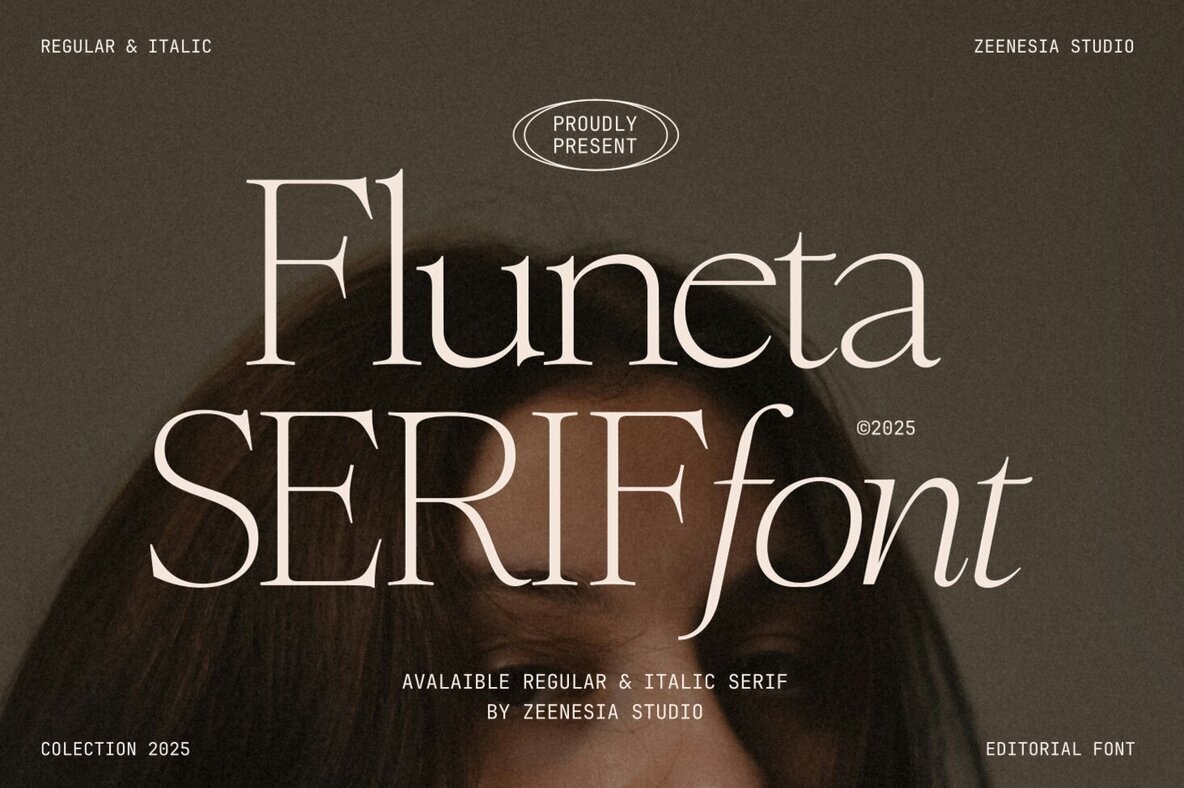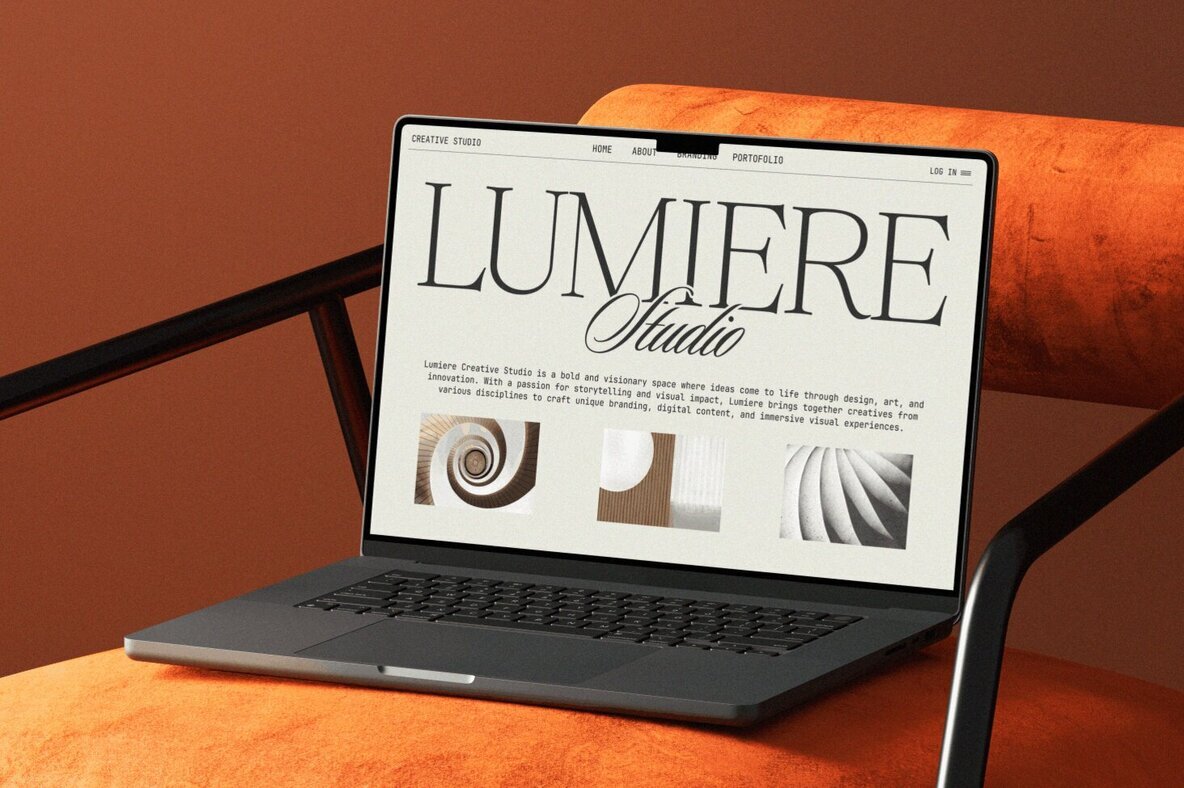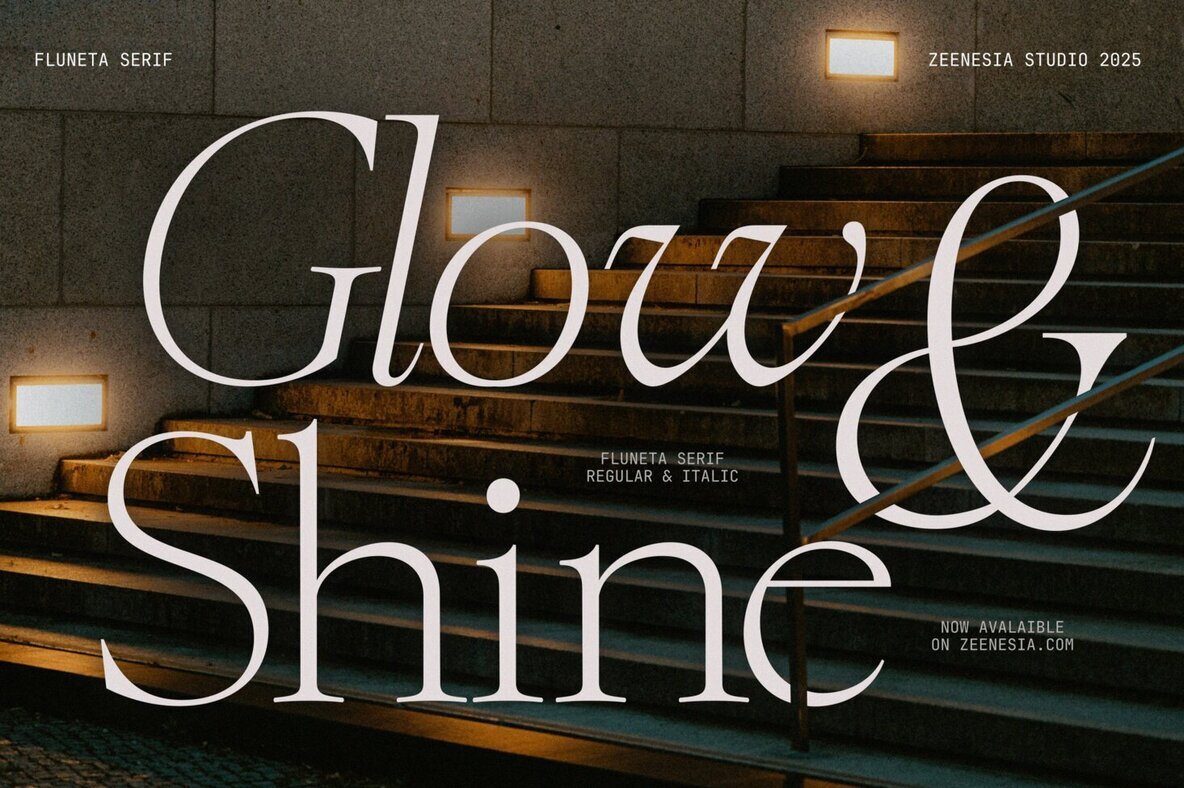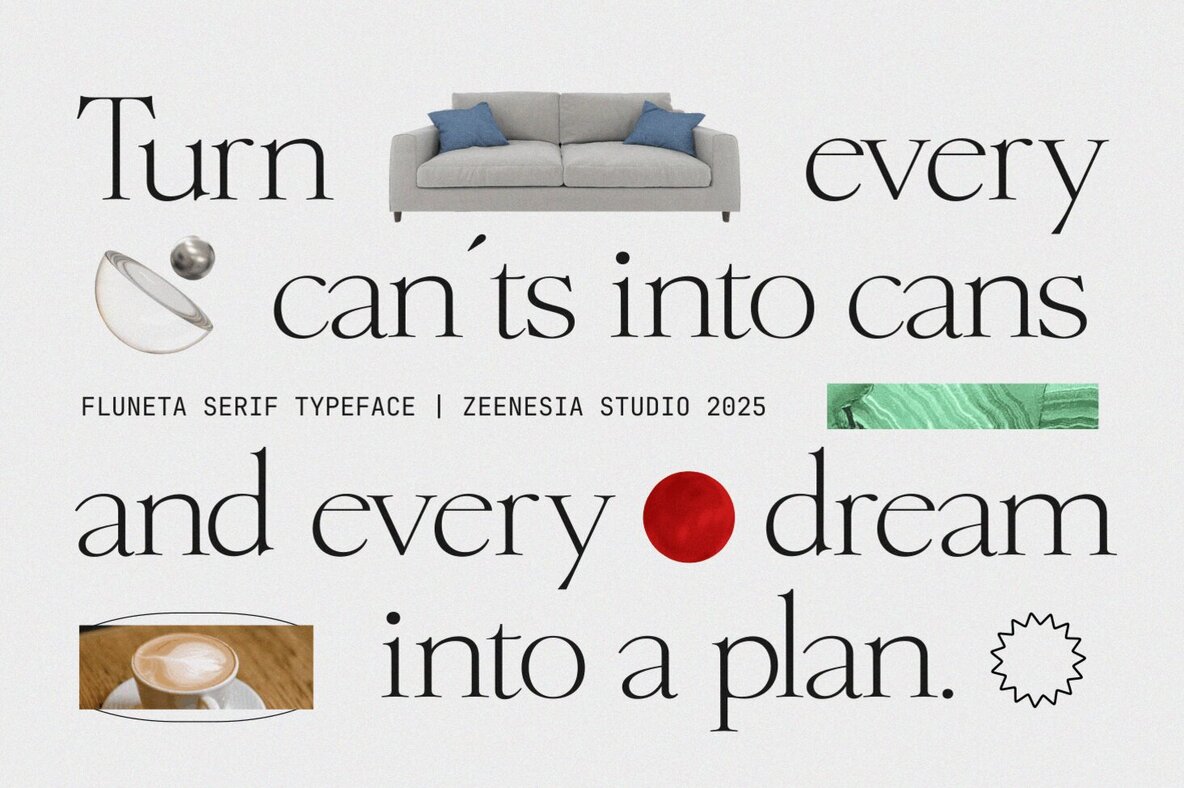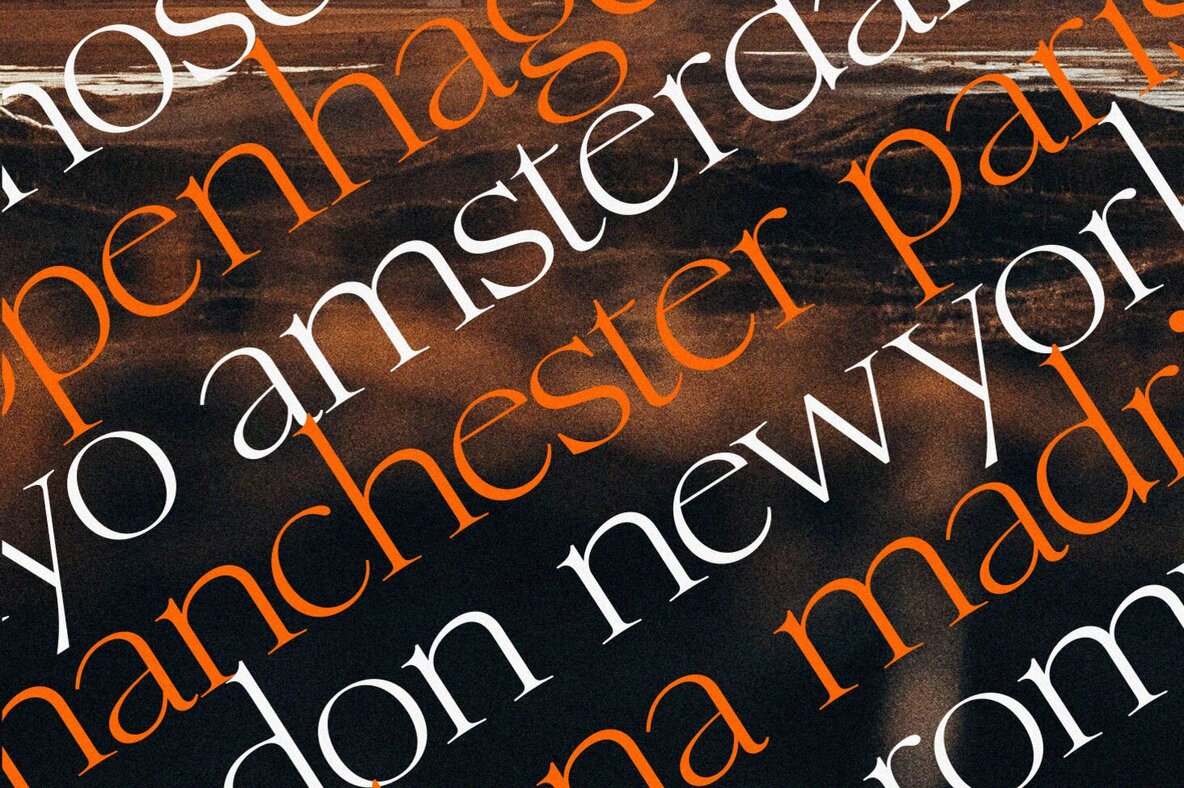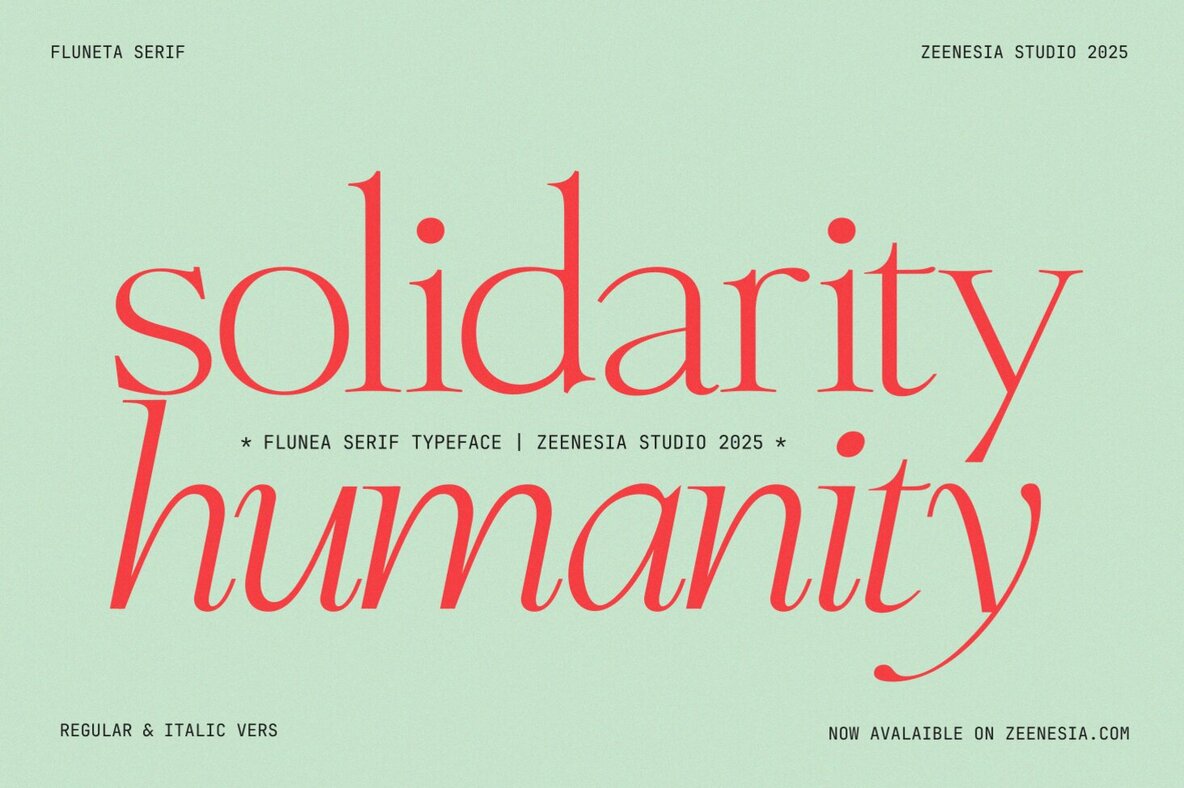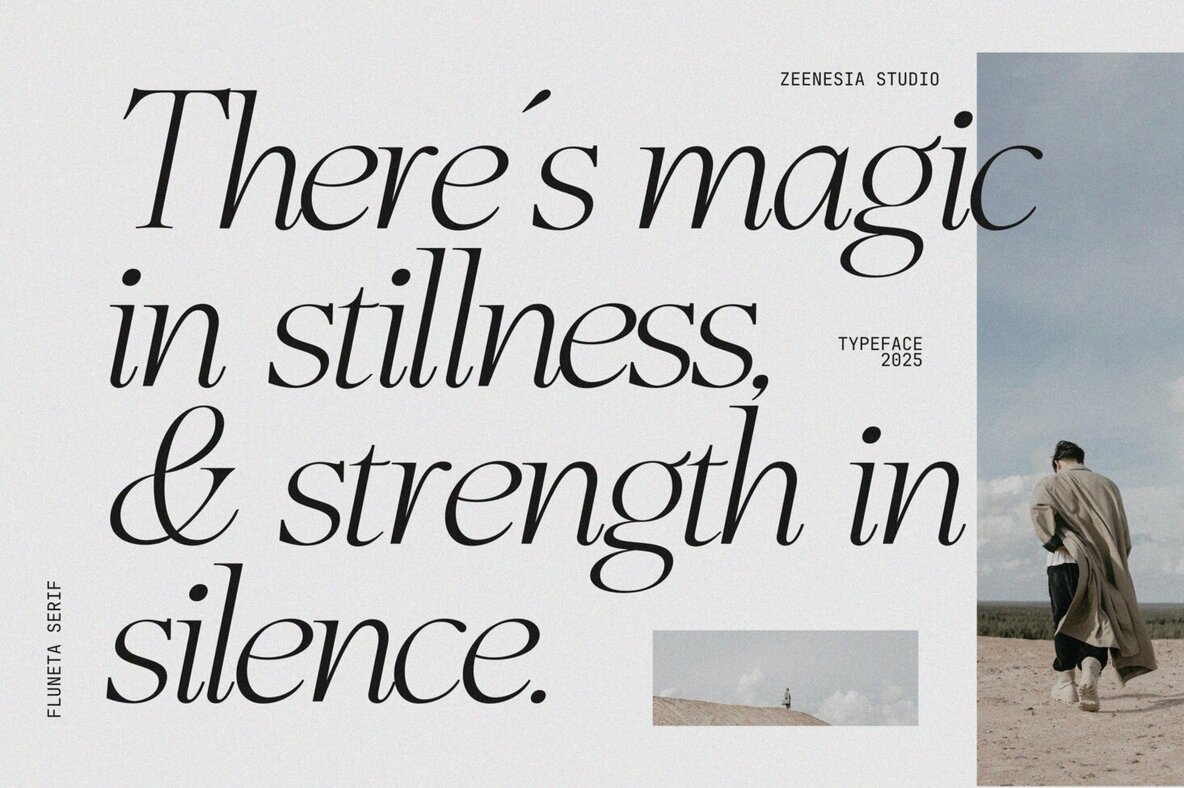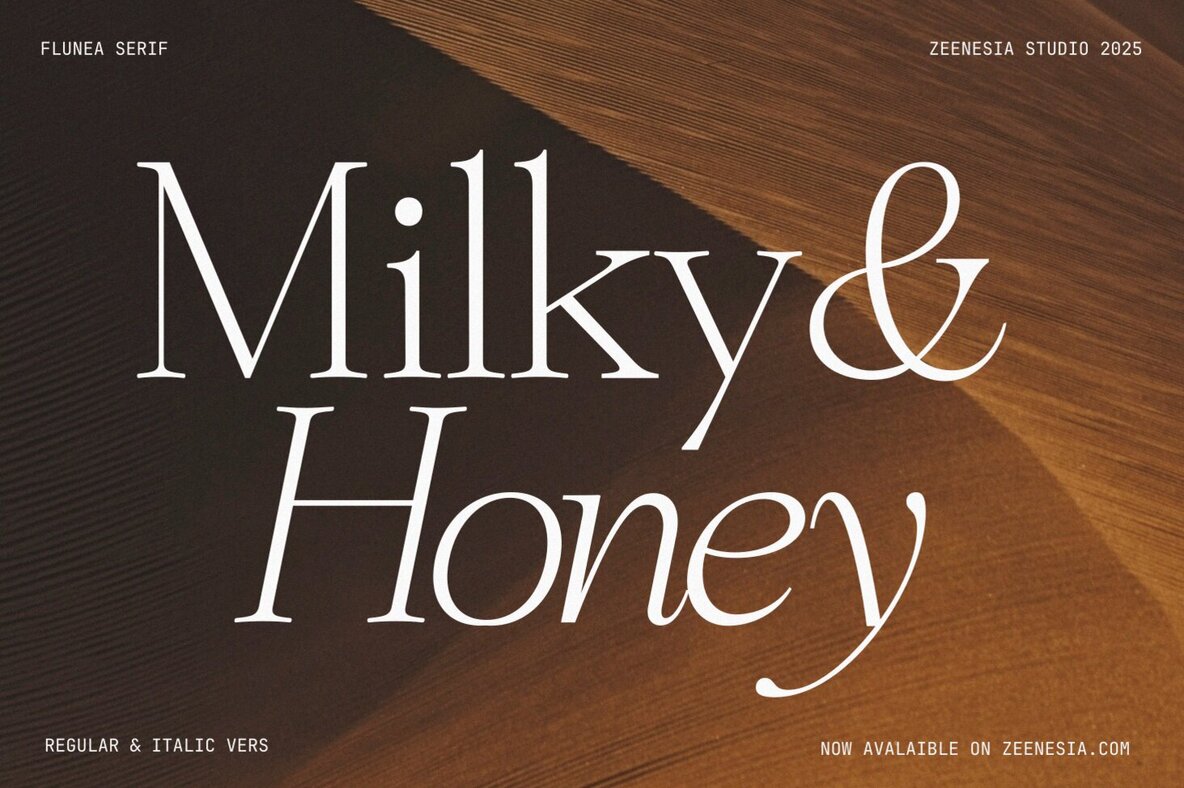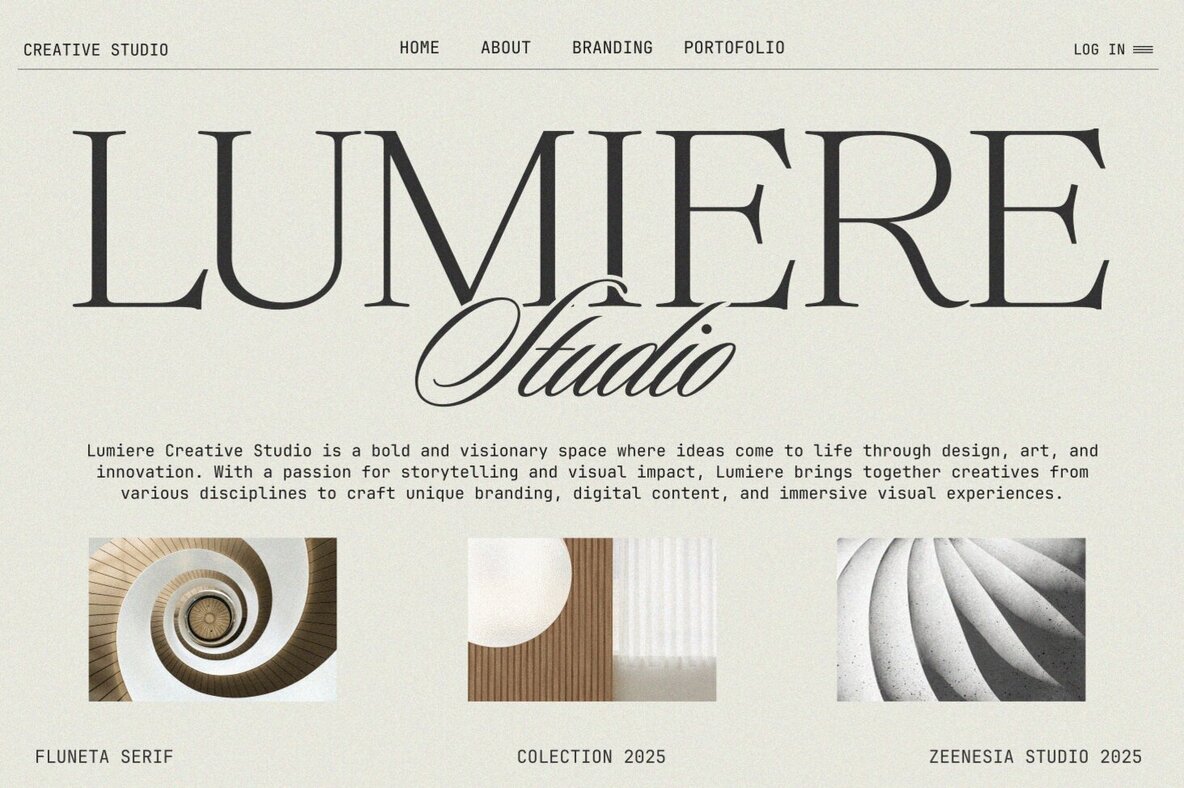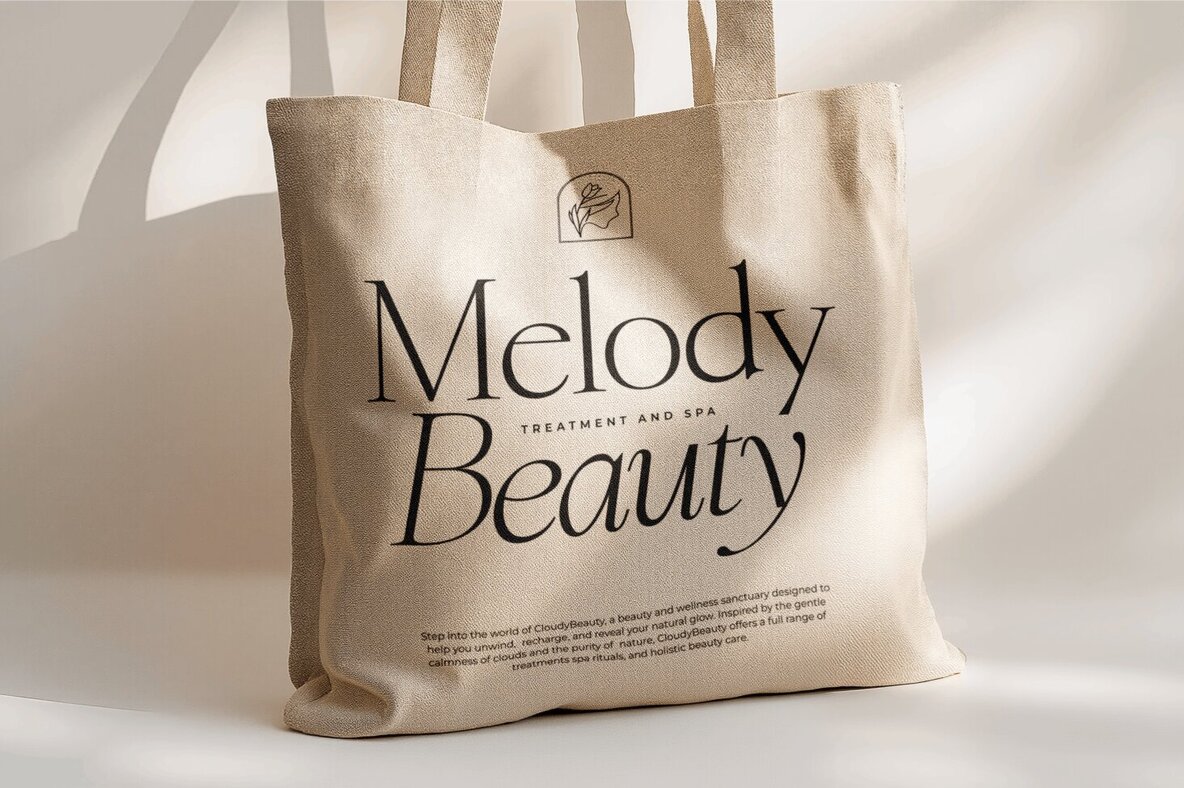
Fluneta Font
Fluneta is a distinguished serif typeface that seamlessly integrates traditional elegance with a hint of modern flair. Available in both Regular and Italic styles, Fluneta enhances your designs with sophistication and clarity, whether for print or digital applications. With its graceful serifs, balanced proportions, and subtle contrast, Fluneta is well-suited for projects such as editorial designs, branding, book covers, and high-end packaging. The Italic version offers a gentle slant, infusing personality and warmth while maintaining readability. Features:Fluneta: Classic Elegance Meets Modern Charm